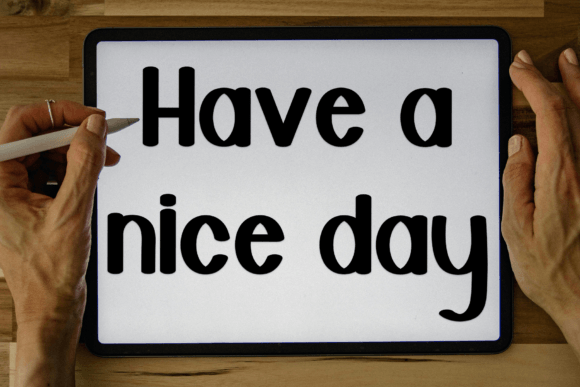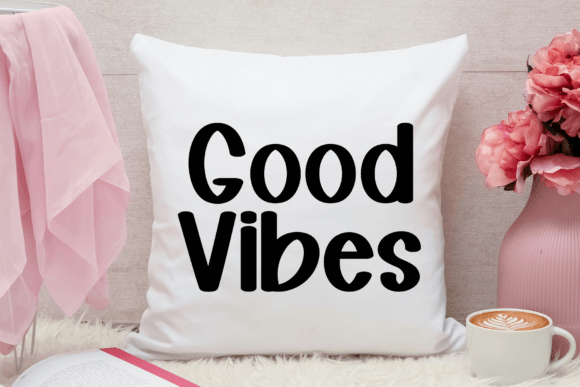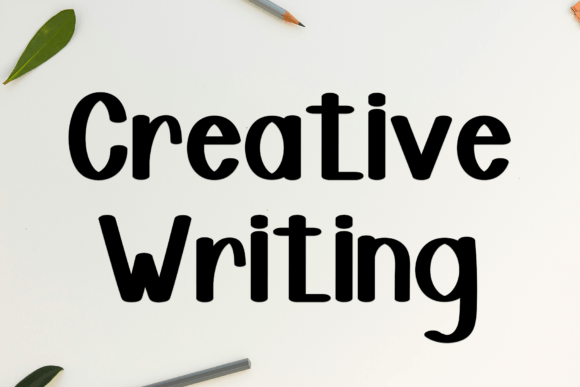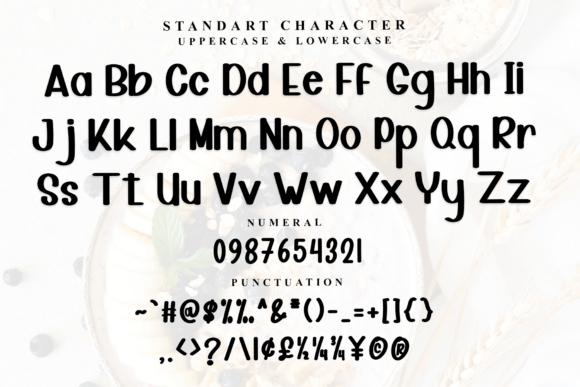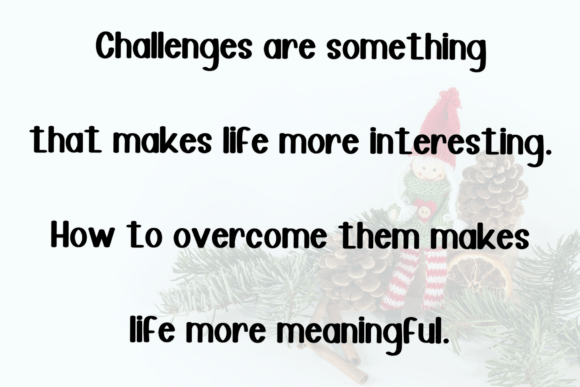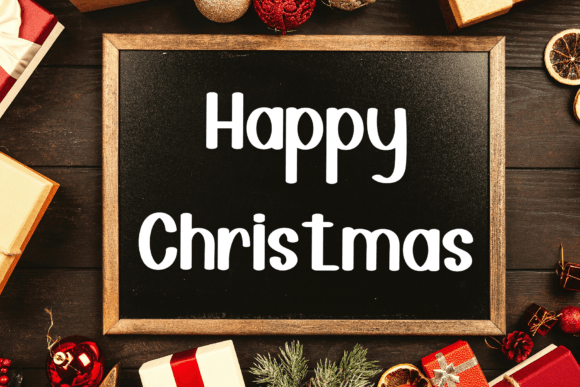
Girls Junior Font: The Sweet and Friendly Handwritten Font for Your Designs
Are you a designer or crafter looking for a font that can add a touch of sweetness and friendliness to your projects? Look no further than Girls Junior Font! This beautiful handwritten font is perfect for a wide range of designs, from invitations and greeting cards to branding and packaging. In this article, we’ll take a closer look at Girls Junior Font and explore its features, benefits, and uses.
What is Girls Junior Font?
Girls Junior Font is a sweet and friendly handwritten font that is designed to bring a personal touch to your designs. Its natural and unique style makes it incredibly fitting to a large pool of designs, from feminine and playful to elegant and sophisticated. The font is perfect for designers and crafters who want to add a human touch to their projects and make them stand out from the crowd.
Features of Girls Junior Font
Girls Junior Font has several features that make it a great choice for designers and crafters. Some of its key features include:
- Handwritten style: Girls Junior Font is a handwritten font that has a natural and unique style, making it perfect for designs that require a personal touch.
- Sweet and friendly: The font has a sweet and friendly feel to it, making it perfect for designs that require a playful and approachable tone.
- Versatile: Girls Junior Font is incredibly versatile and can be used for a wide range of designs, from invitations and greeting cards to branding and packaging.
- Easy to read: The font is easy to read, even at small sizes, making it perfect for designs that require a lot of text.
Benefits of Using Girls Junior Font
There are several benefits to using Girls Junior Font in your designs. Some of the benefits include:
- Adds a personal touch: Girls Junior Font adds a personal touch to your designs, making them more relatable and engaging.
- Stand out from the crowd: The font’s unique style helps your designs stand out from the crowd and grab attention.
- Perfect for feminine designs: Girls Junior Font is perfect for feminine designs, such as wedding invitations, birthday cards, and branding for women’s products.
Uses of Girls Junior Font
Girls Junior Font can be used for a wide range of designs, including:
- Invitations: The font is perfect for invitations, such as wedding invitations, birthday invitations, and baby shower invitations.
- Greeting cards: Girls Junior Font is great for greeting cards, such as Christmas cards, Valentine’s Day cards, and thank-you cards.
- Branding: The font can be used for branding, such as logos, packaging, and website headers.
- Packaging: Girls Junior Font is perfect for packaging, such as labels, tags, and product packaging.
Tips for Using Girls Junior Font
Here are some tips for using Girls Junior Font in your designs:
- Use it with contrasting colors: Use Girls Junior Font with contrasting colors to make it stand out.
- Experiment with different sizes: Experiment with different sizes to find the perfect size for your design.
- Pair it with other fonts: Pair Girls Junior Font with other fonts to create a unique and interesting design.
- Use it for headings and titles: Use Girls Junior Font for headings and titles to add a personal touch to your design.
In conclusion, Girls Junior Font is a sweet and friendly handwritten font that is perfect for designers and crafters who want to add a personal touch to their projects. Its natural and unique style makes it incredibly fitting to a large pool of designs, and its versatility makes it perfect for a wide range of uses. With its ease of use and flexibility, Girls Junior Font is a great addition to any designer’s or crafter’s toolkit.